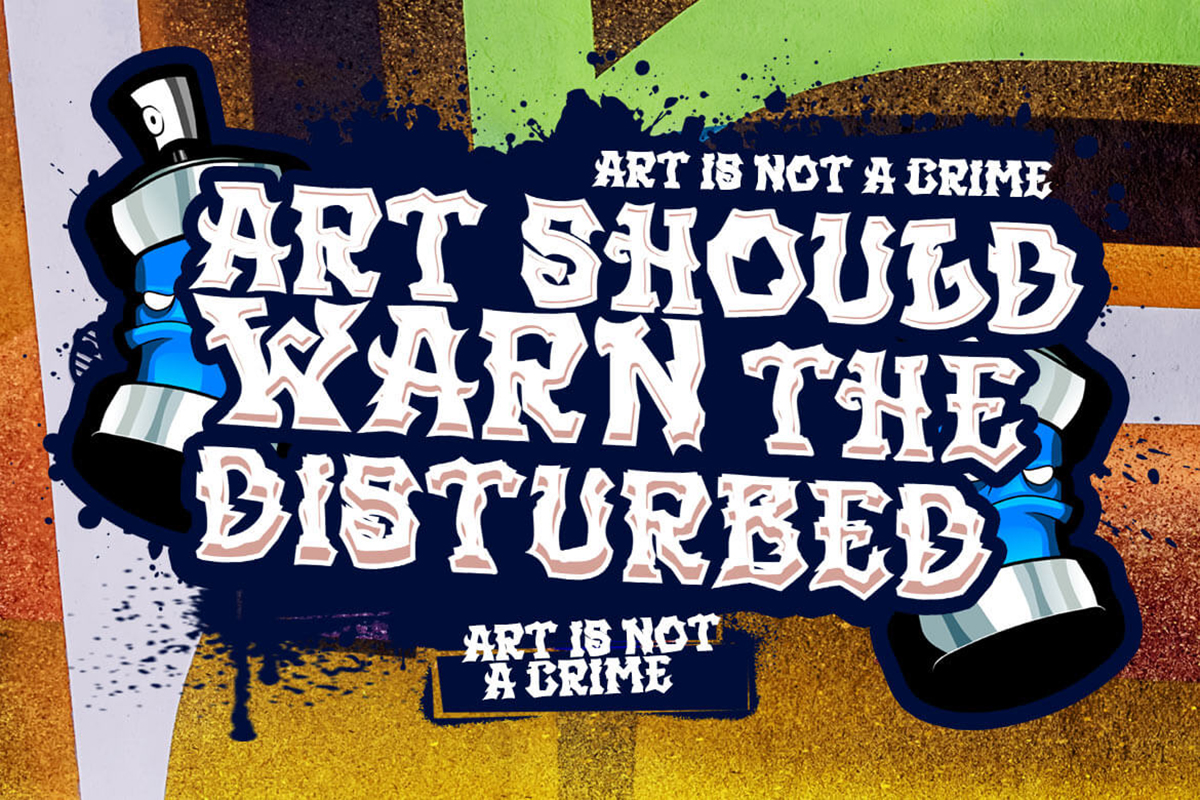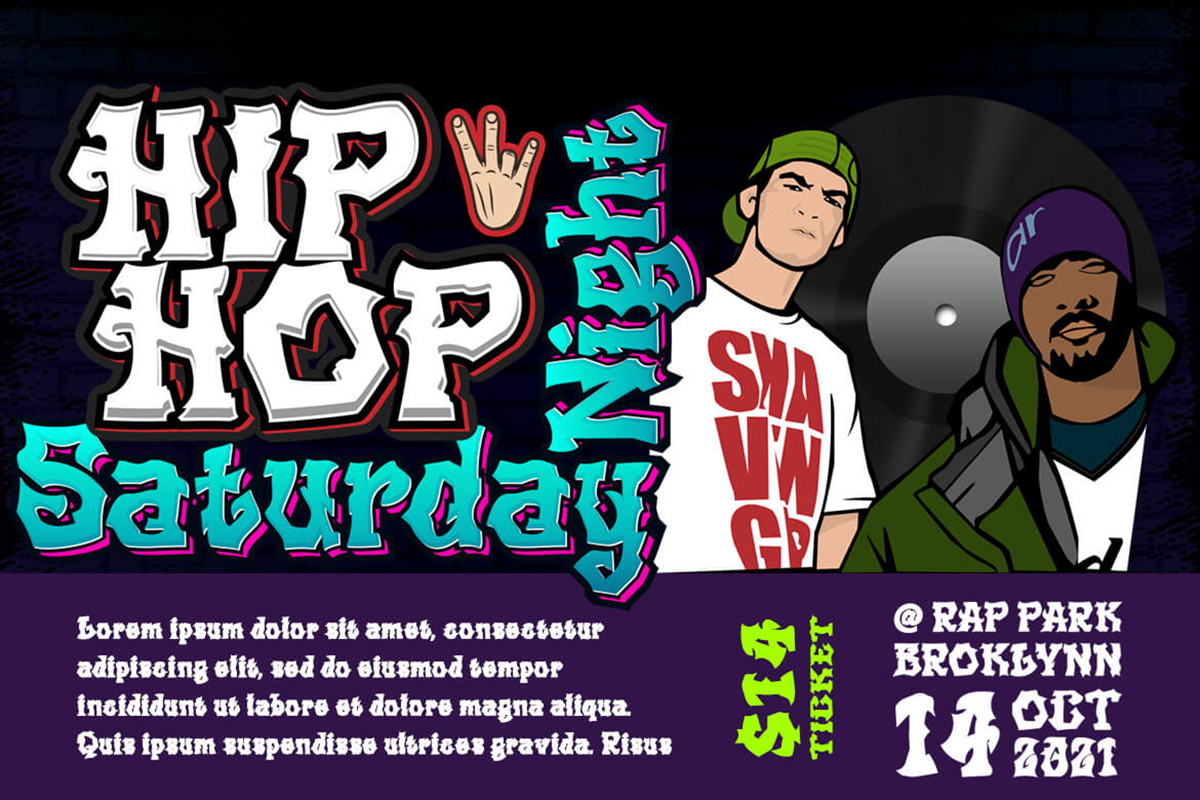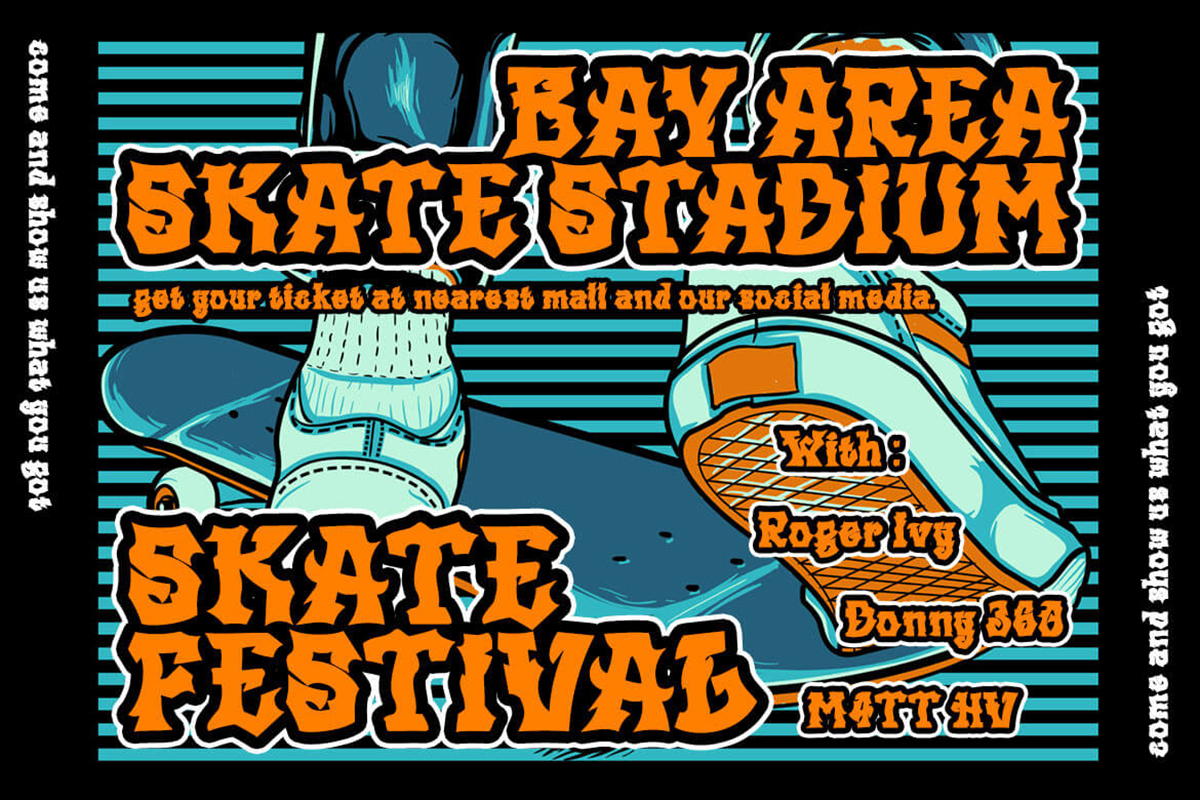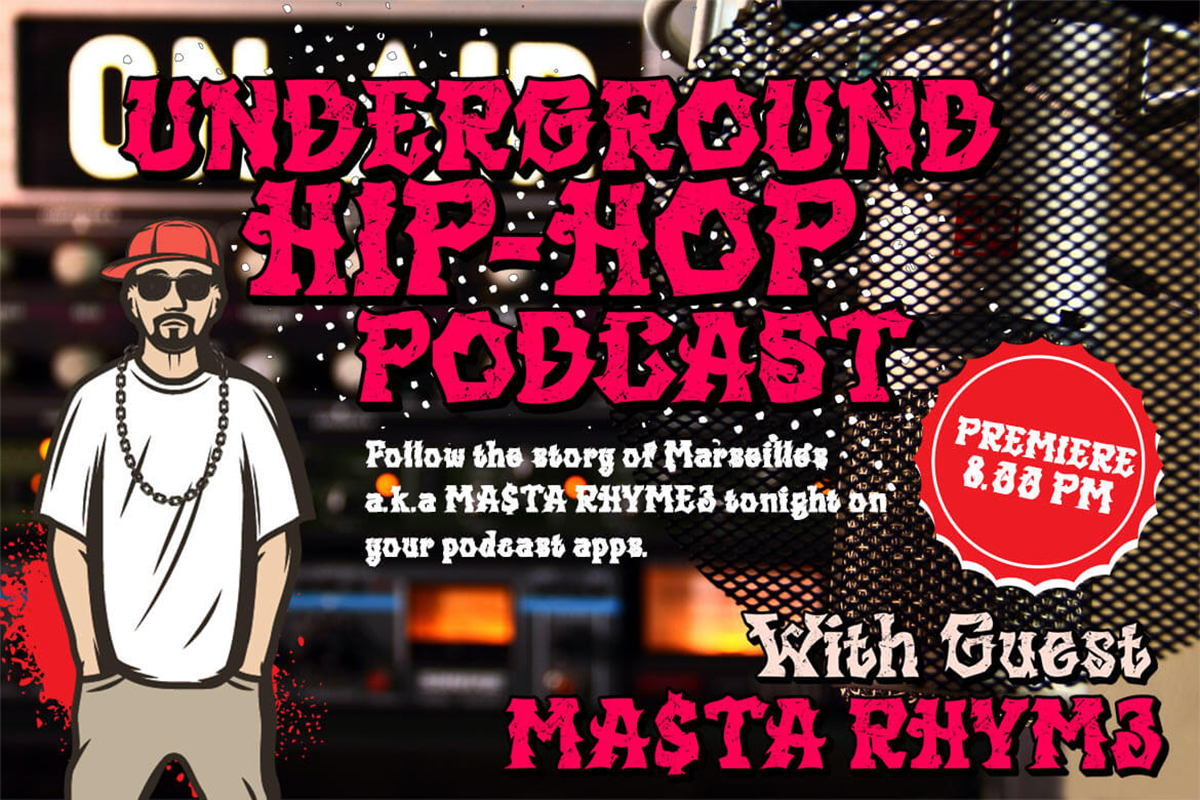
Esgard Free Font
Explore Esgard Free Font, a font imbued with a graffiti theme, perfect for adding an urban and edgy flair to your projects. This graffiti font is well-suited for product logos, poster titles, headlines, packaging, film titles, logotypes, stylish writing, and contemporary graffiti designs. Incorporate this typeface promptly to elevate your projects with a distinctive and remarkable touch. Unleash the uniqueness of Esgard for a one-of-a-kind visual impact on your creative endeavors. This free typeface was designed by a talented Twin Letter. If you like it don’t forget to check out the full version.